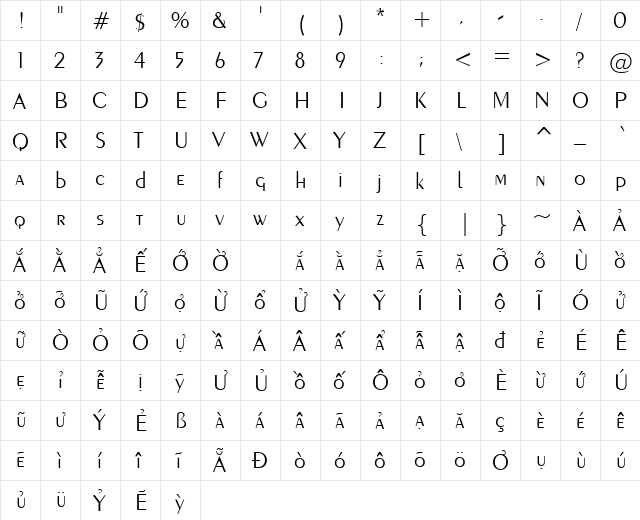
VPS Kien Giang Light Font Preview
VPS Kien Giang Light
Design Context for VPS Kien Giang Typeface
VPS Kien Giang takes a measured approach to typography — its balanced proportions and neutral character make it a reliable workhorse for both digital and print work. Its slender proportions lend an understated elegance to any composition.